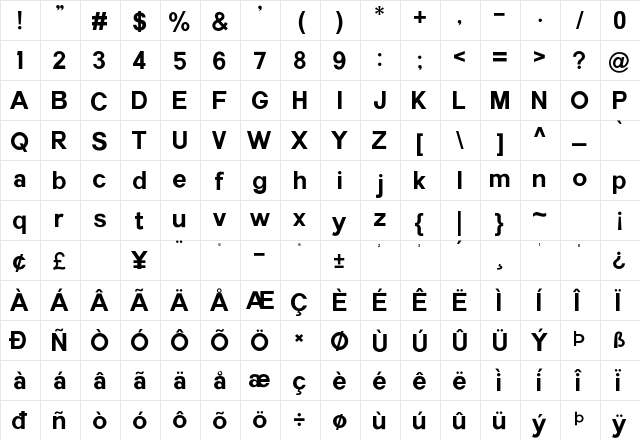
Havertize Regular
Design Context for Havertize Typeface
Havertize takes a measured approach to typography — its balanced proportions and neutral character make it a reliable workhorse for both digital and print work.